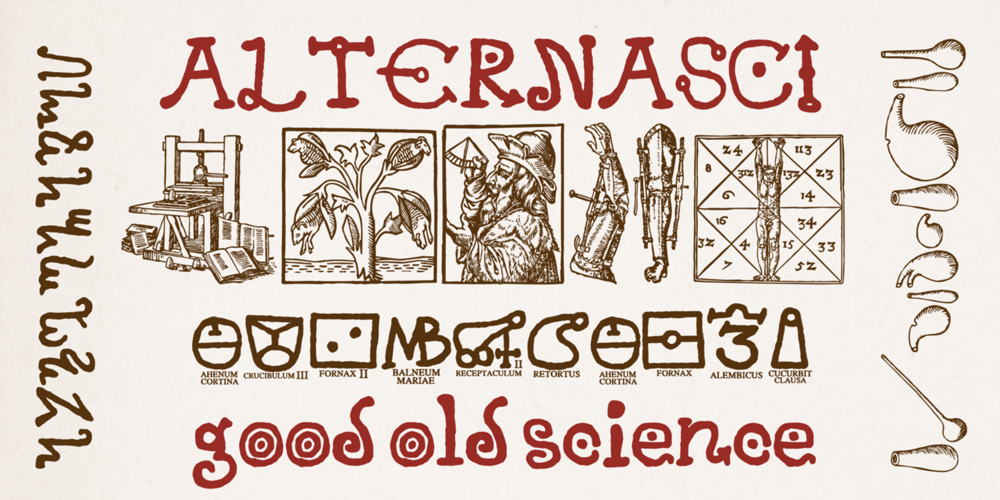
Alternasci Font Family was designed by Heikki Morgan Hämäläinen and published by Morganismi. Alternasci contains 4 styles and family package options. The Alternasci family consists of five individual fonts in the spirit of renaissance.Alternasci Regular is a handmade typeface resembling markings in old manuscripts. It supports most European languages.Alternasci Alchemia comes with the uppercase Alternasci letters and (in Latin) explained alchemy symbols.Alternasci Magia comes with lowercase Alternasci letters. The upper case is the so called Theban or Witch’s Alphabet. It has also got some magical idols.Alternasci Picturae gives you by its four hundred pictures an imagery of good old science, mostly related with alchemy and occultism.